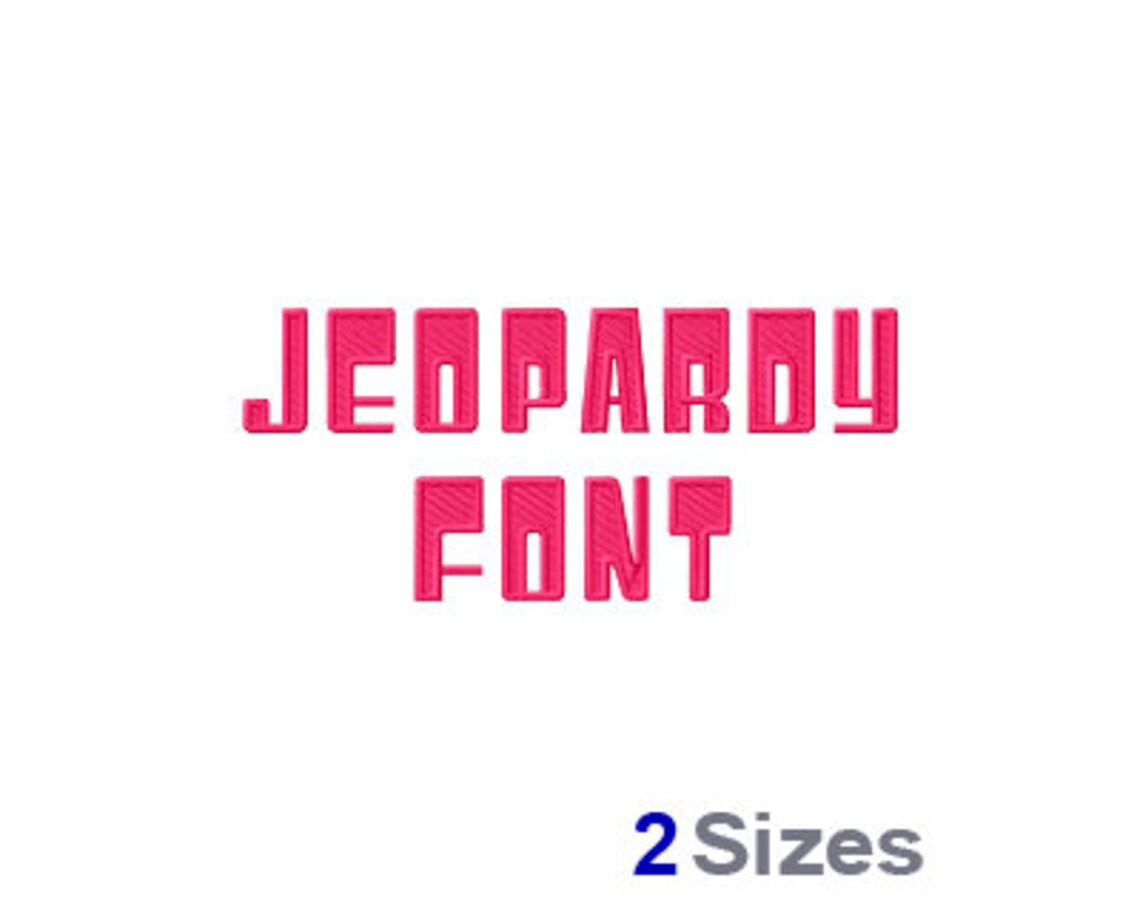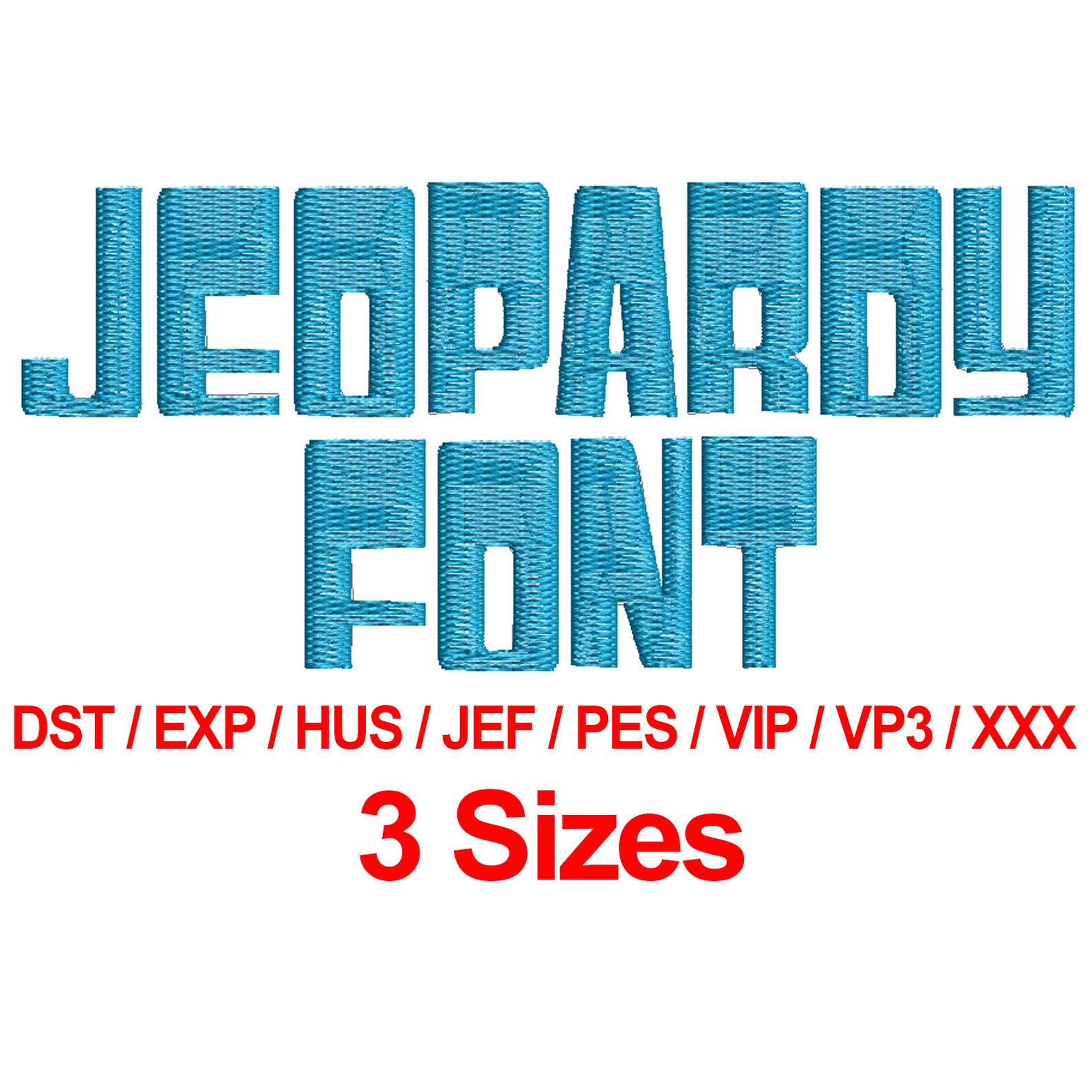
Font For Jeopardy . Anonymous, a late 1960s typeface, inspired geoparody. This typeface captures a balance between playful quirkiness and stark professionalism, reflecting the spirit of the game show while ensuring high visibility and brand recognition. Is a great typographic test case. Try our text generator and create cool graphics for jeopardy font, then you can save the font image to your pc, mac,. The program fills more screen and airtime with type than any. It features fonts like itc korinna, which you can recognize from the clue cards, and swiss 911 from the game board. The quiz game show jeopardy! Jeopardy font generator & download is available free at fontbolt. An alternate “x” and “y” are available as opentype. And many more at the original famous fonts! This typeface was famously used for the television quiz show jeopardy. The font used in the logo of jeopardy! The font is available in uppercase letters, lowercase. Download the free font replicating the title logo from the tv show jeopardy! Identify the jeopardy font used in the logo.
It features fonts like itc korinna, which you can recognize from the clue cards, and swiss 911 from the game board. Download the free font replicating the title logo from the tv show jeopardy! This typeface was famously used for the television quiz show jeopardy. Is very similar to gyparody designed by ray larabie. An alternate “x” and “y” are available as opentype. Logo famously utilizes a modified version of the font gyparody, designed by ray larabie. And many more at the original famous fonts! Is a great typographic test case. This typeface captures a balance between playful quirkiness and stark professionalism, reflecting the spirit of the game show while ensuring high visibility and brand recognition. Jeopardy font generator & download is available free at fontbolt.
Font For Jeopardy Download the free font replicating the title logo from the tv show jeopardy! For the logo itself, gyparody by larabie. The program fills more screen and airtime with type than any. Try our text generator and create cool graphics for jeopardy font, then you can save the font image to your pc, mac,. This typeface was famously used for the television quiz show jeopardy. The font is available in uppercase letters, lowercase. And many more at the original famous fonts! This typeface captures a balance between playful quirkiness and stark professionalism, reflecting the spirit of the game show while ensuring high visibility and brand recognition. It features fonts like itc korinna, which you can recognize from the clue cards, and swiss 911 from the game board. An alternate “x” and “y” are available as opentype. Download the free font replicating the title logo from the tv show jeopardy! Logo famously utilizes a modified version of the font gyparody, designed by ray larabie. The font used in the logo of jeopardy! Discovering the font behind the iconic ‘jeopardy!’ logo unveils a fascinating journey into typographic history. Anonymous, a late 1960s typeface, inspired geoparody. Is a great typographic test case.
Finally, Jeopardy gets a fonts category Creative Bloq Font For Jeopardy The font is available in uppercase letters, lowercase. Logo famously utilizes a modified version of the font gyparody, designed by ray larabie. Anonymous, a late 1960s typeface, inspired geoparody. This typeface was famously used for the television quiz show jeopardy. Identify the jeopardy font used in the logo. Download the free font replicating the title logo from the tv show. Font For Jeopardy.
Jeopardy Font Font For Jeopardy The font is available in uppercase letters, lowercase. And many more at the original famous fonts! Is a great typographic test case. Is very similar to gyparody designed by ray larabie. The font used in the logo of jeopardy! It features fonts like itc korinna, which you can recognize from the clue cards, and swiss 911 from the game board.. Font For Jeopardy.
Jeopardy Font Dafont Free Font For Jeopardy The font used in the logo of jeopardy! The font is available in uppercase letters, lowercase. Identify the jeopardy font used in the logo. Discovering the font behind the iconic ‘jeopardy!’ logo unveils a fascinating journey into typographic history. Is a great typographic test case. An alternate “x” and “y” are available as opentype. Anonymous, a late 1960s typeface, inspired. Font For Jeopardy.
Jeopardy Font Free Download Font For Jeopardy Is very similar to gyparody designed by ray larabie. An alternate “x” and “y” are available as opentype. It features fonts like itc korinna, which you can recognize from the clue cards, and swiss 911 from the game board. This typeface was famously used for the television quiz show jeopardy. Discovering the font behind the iconic ‘jeopardy!’ logo unveils a. Font For Jeopardy.